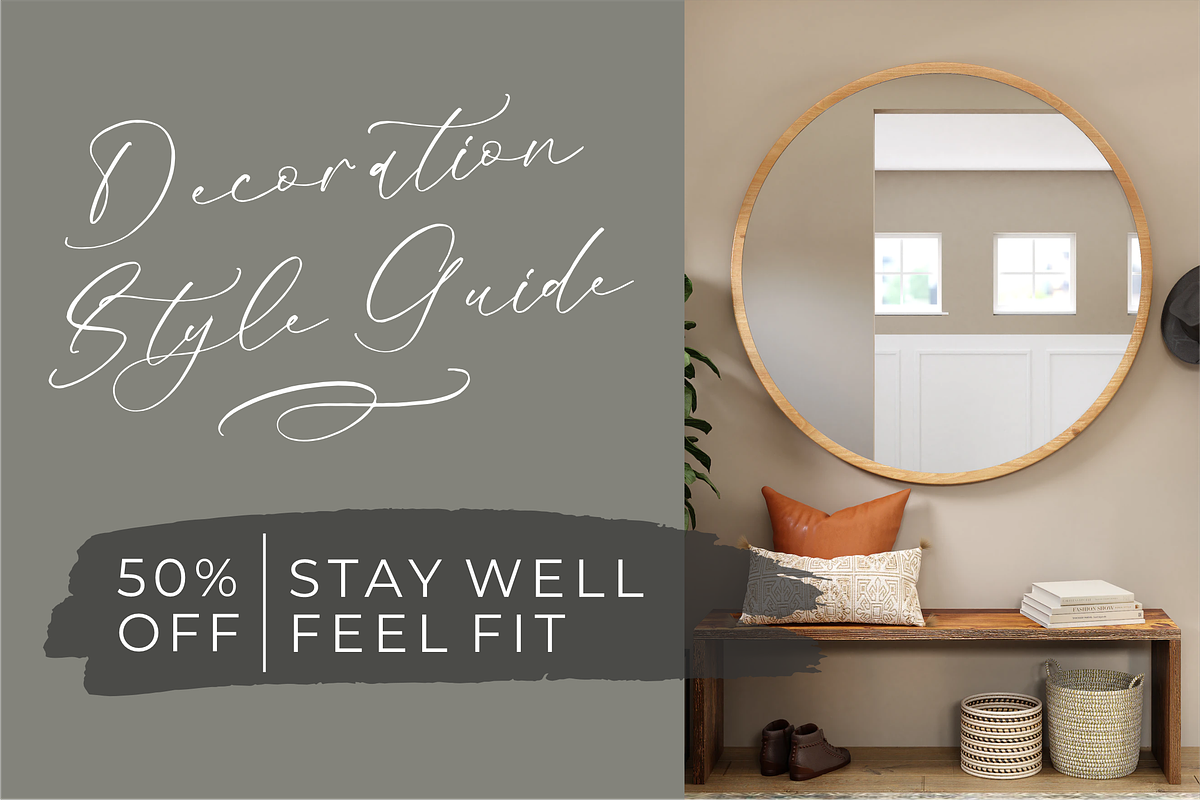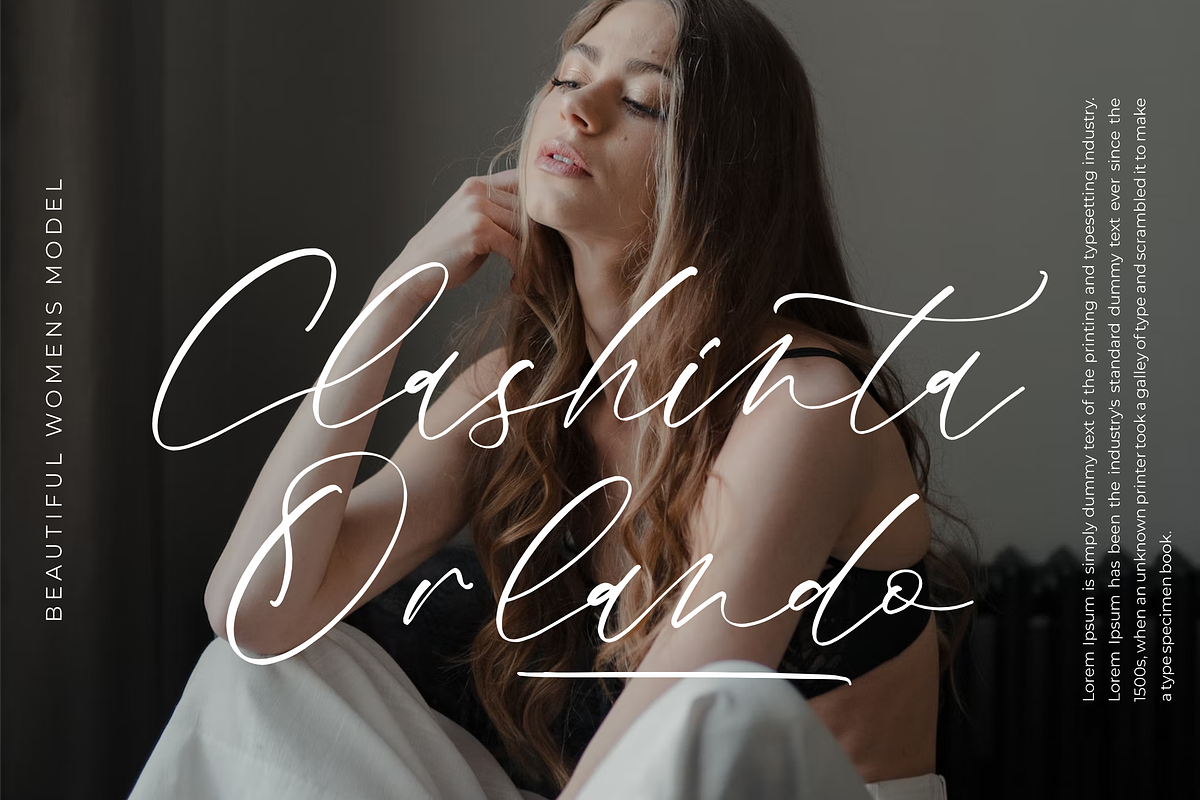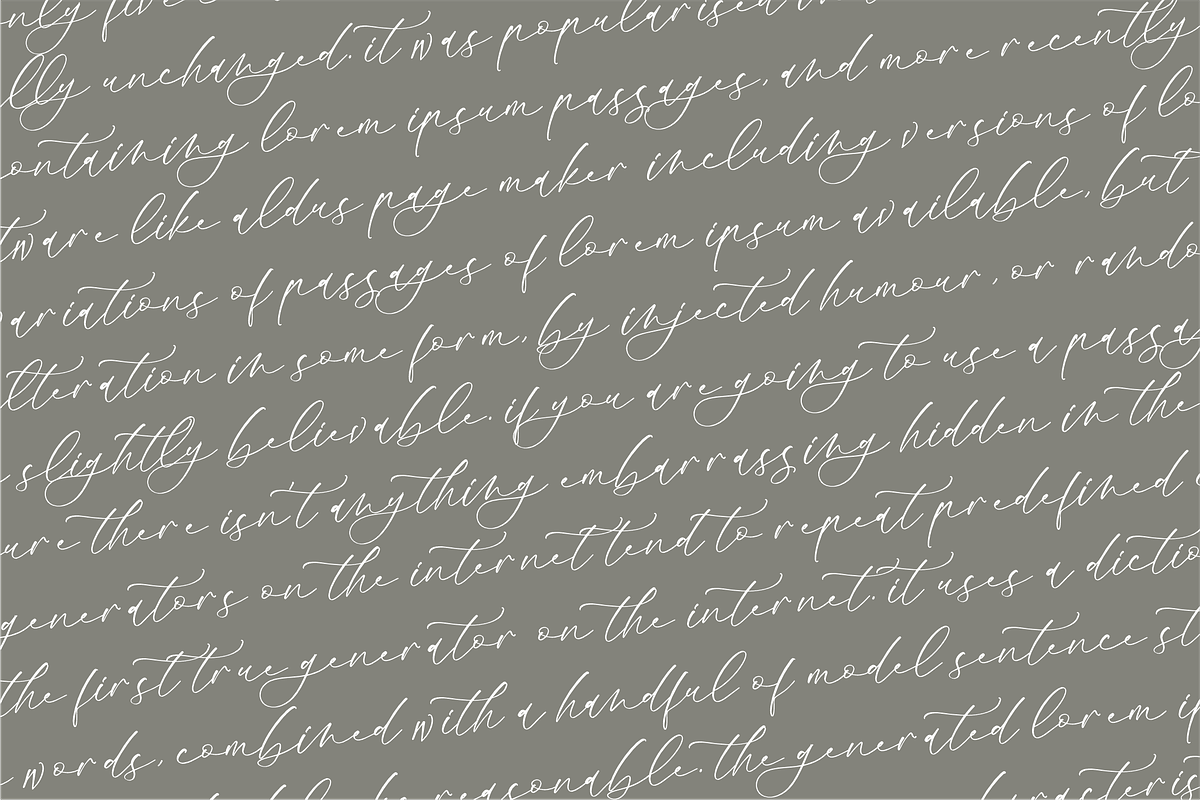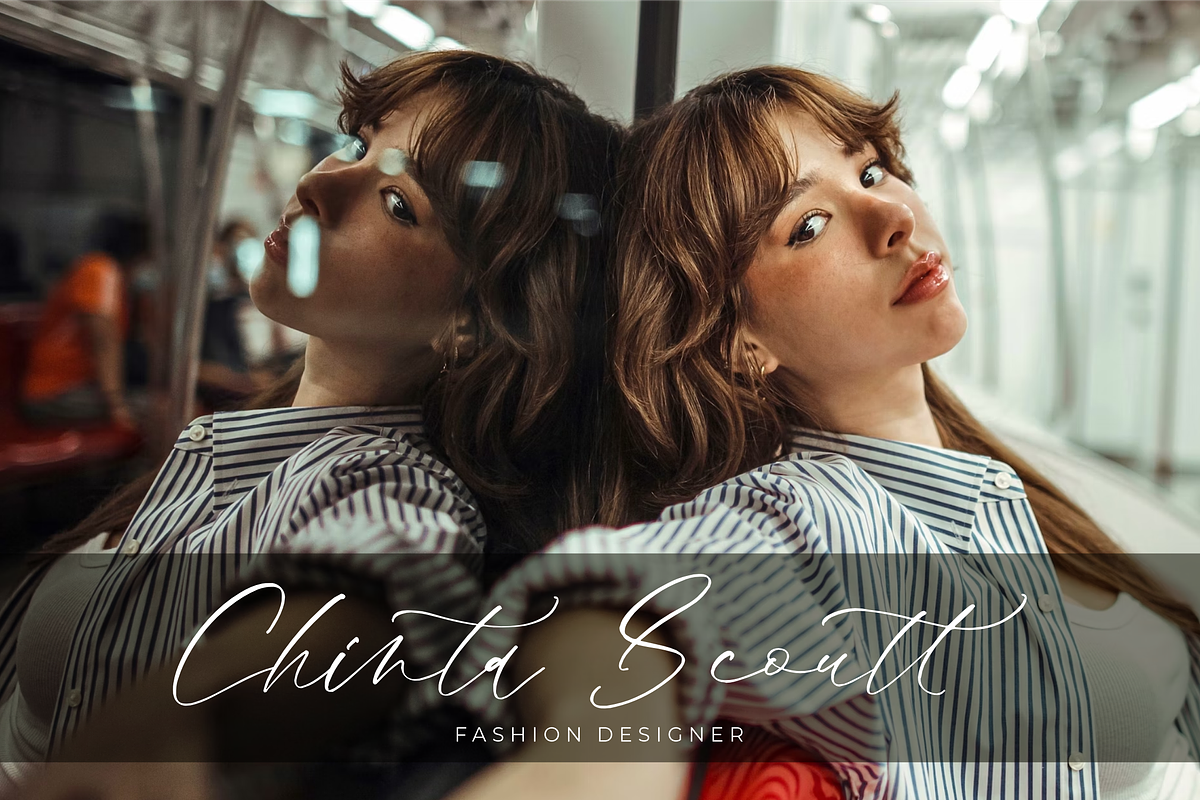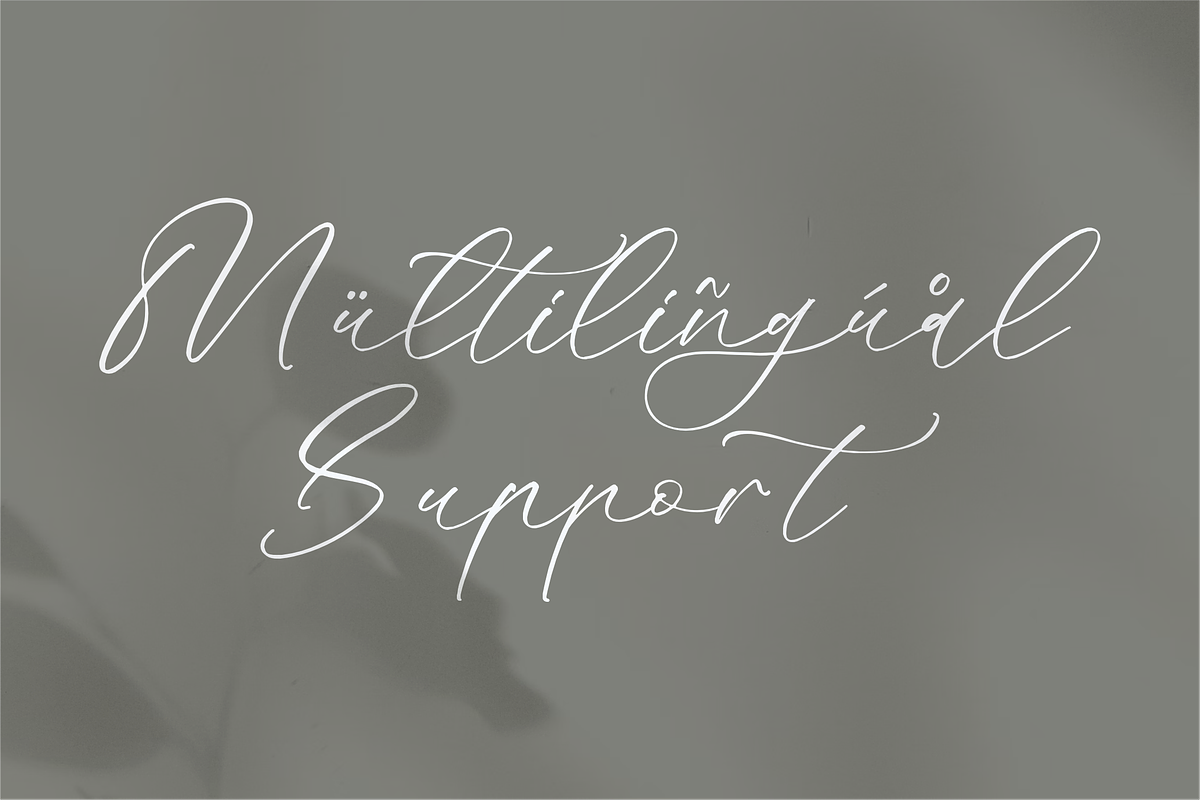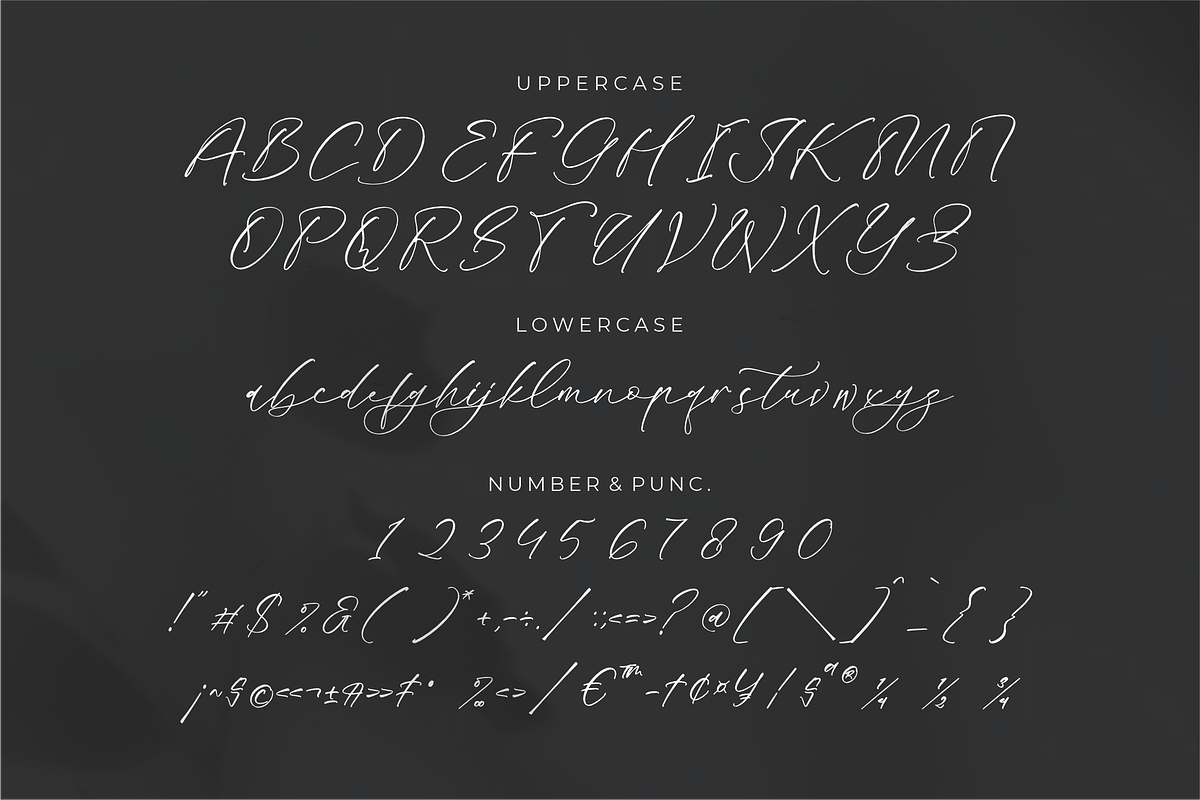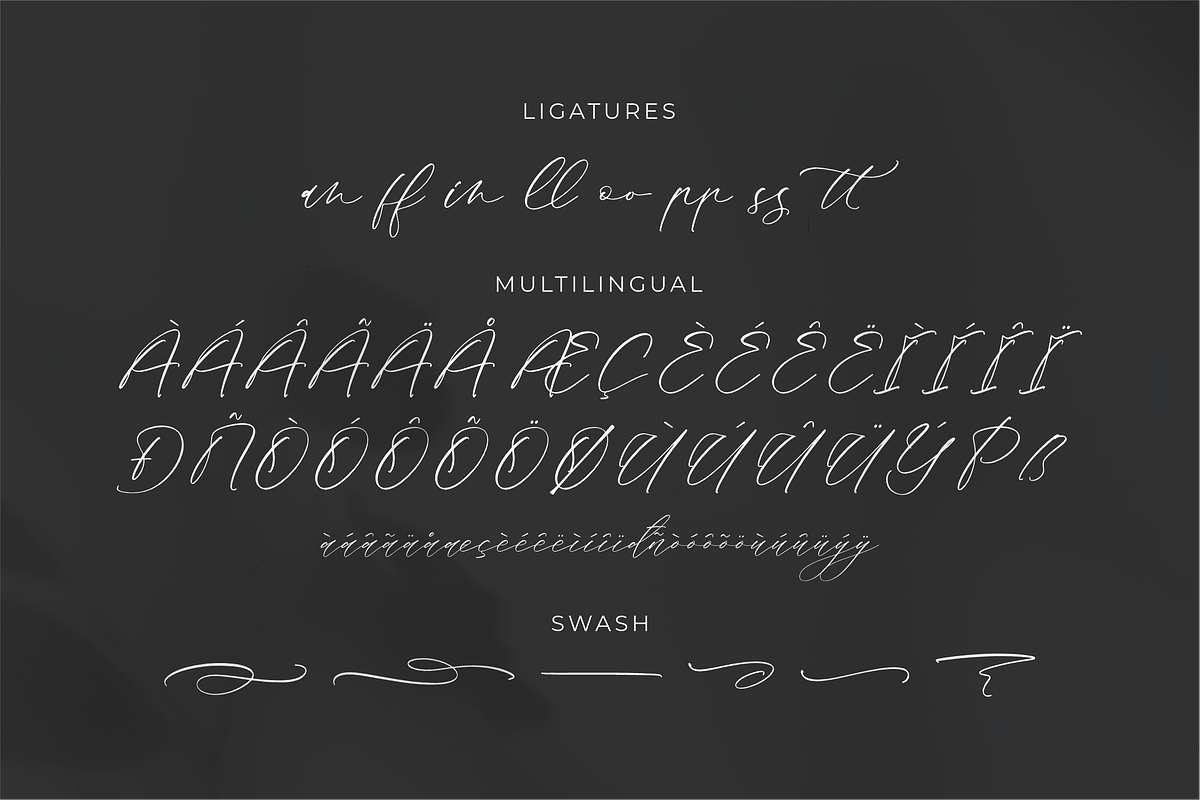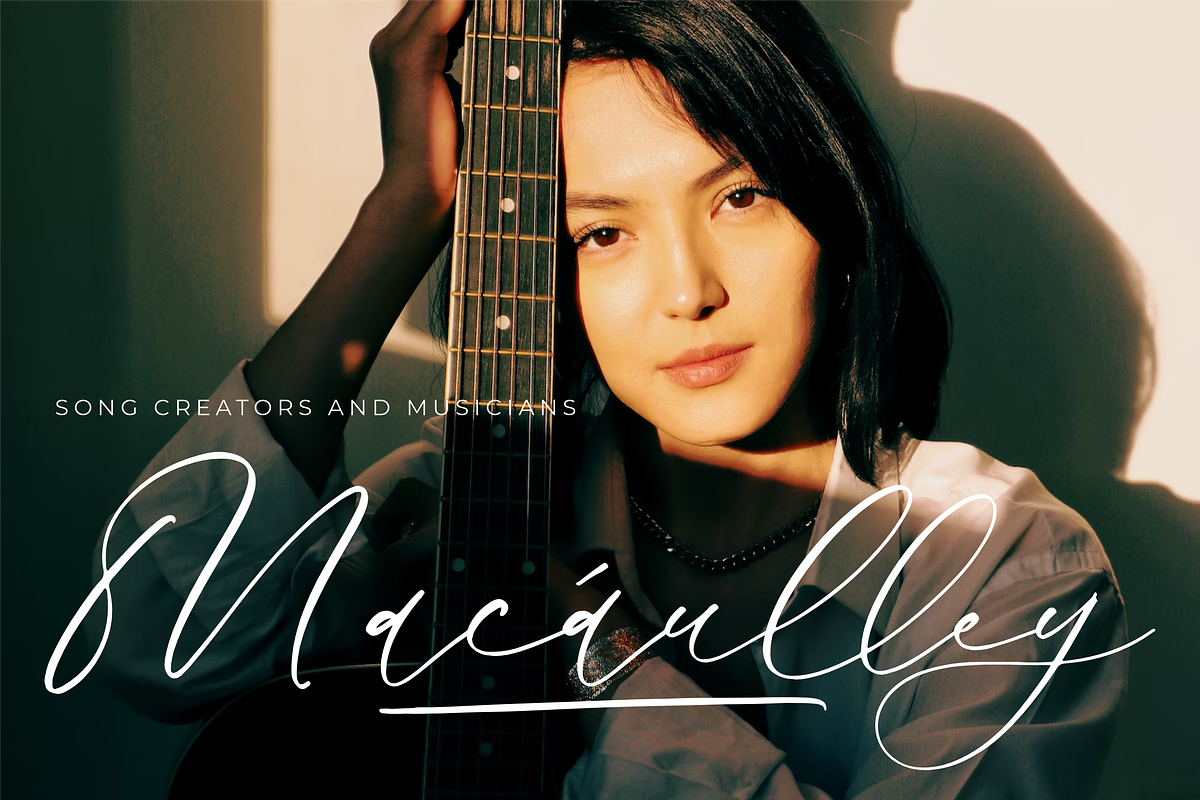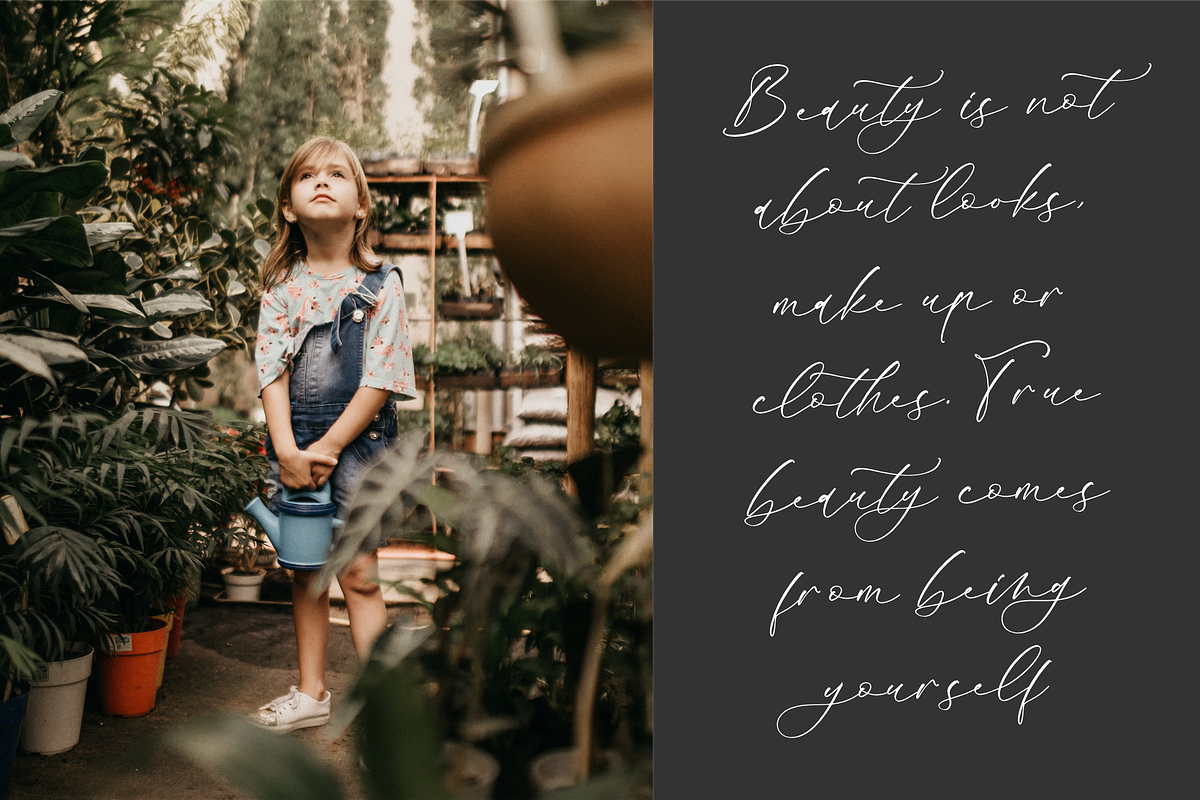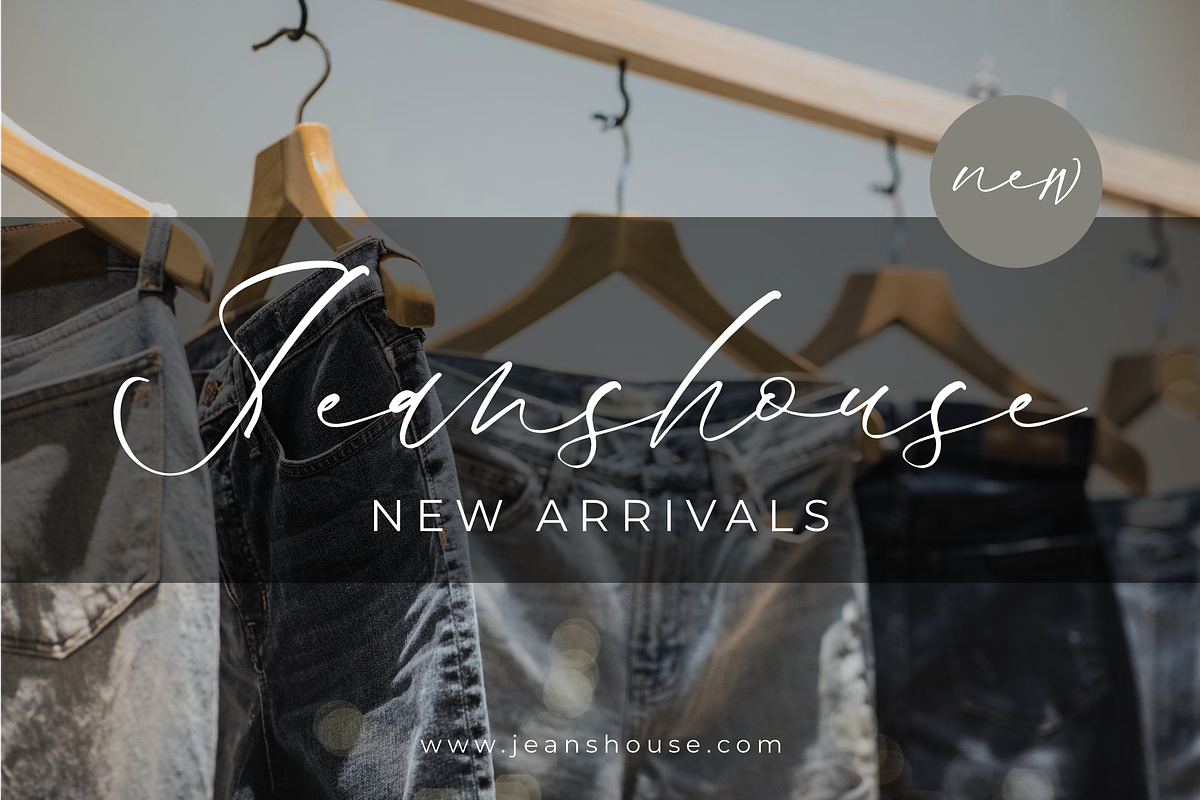
Mandela Clashinta Luxury Calligraphy
Proudly present Mandela Clashinta - Luxury Calligraphy , created by Storytype, A luxury script that has own unique style & modern look. This typeface is perfect for an elegant & luxury logo, book or movie title design, fashion brand, magazine, clothes, lettering, quotes, and so much more.